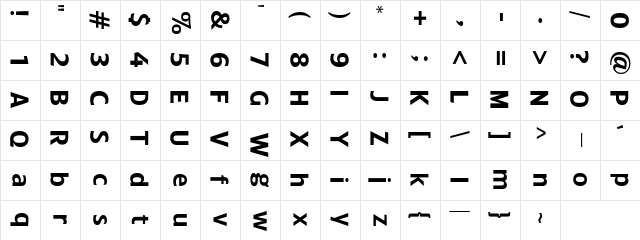
FontRight Regular
Design Context for FontRight Typeface
FontRight takes a measured approach to typography — its balanced proportions and neutral character make it a reliable workhorse for both digital and print work.